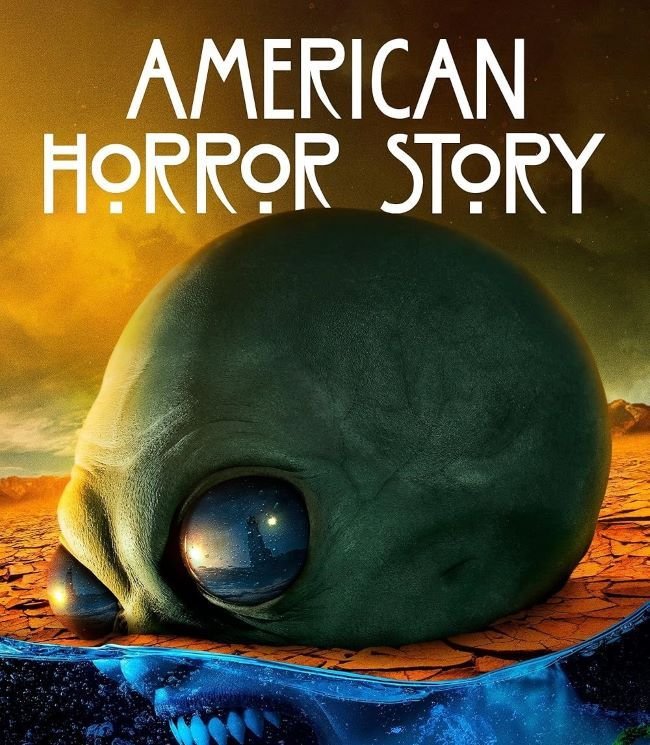
American Horror Story font uses ITC Willow — an Art Nouveau-inspired typeface designed in the 1990s with tall, narrow proportions and unusual geometric interruptions in the letterforms that create a visual unease entirely out of proportion with its relative restraint — and it is one of the best-matched typeface-to-show relationships in anthology television history.
Ryan Murphy and Brad Falchuk’s FX series, which has reimagined American horror archetypes across a dozen distinct seasons since 2011, needed title typography that could function as a kind of recurring visual constant across wildly different settings and tones, and ITC Willow’s strange, elongated unnaturalness provides exactly that continuity. The freely available American Horror Story Font brings this distinctive uncanny register to creative projects.